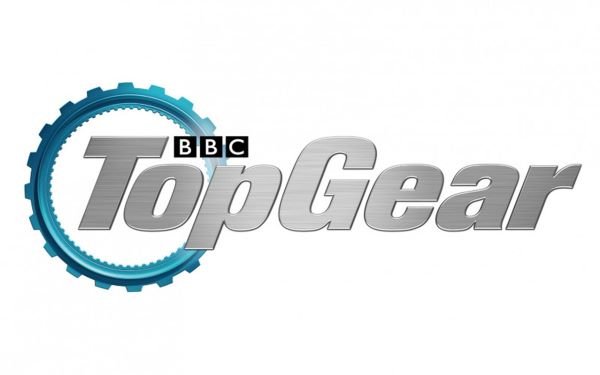
Top Gear Font is a custom-designed typeface created specifically for the show’s branding — a bold industrial sans-serif with thick strokes, mechanical proportions, and strong angles that perfectly match the show’s focus on cars, speed, and automotive engineering since it first aired on the BBC in 1977. A free alternative is available for personal use.